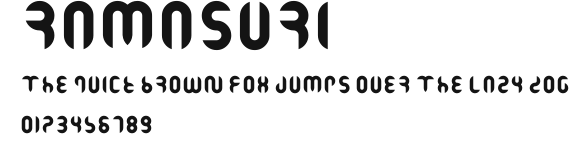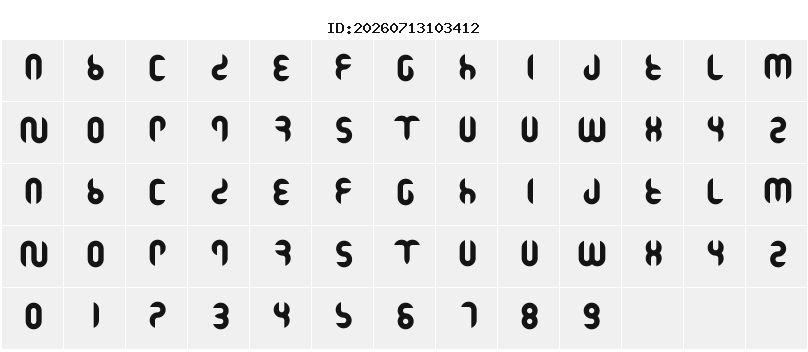
• Font Name: Ramasuri
• Full Font Name: Ramasuri
Ramasuri.ttf is a modern, elegant sans-serif font designed for ultimate readability and visual harmony. Perfect for branding, headlines, web design, and print materials.